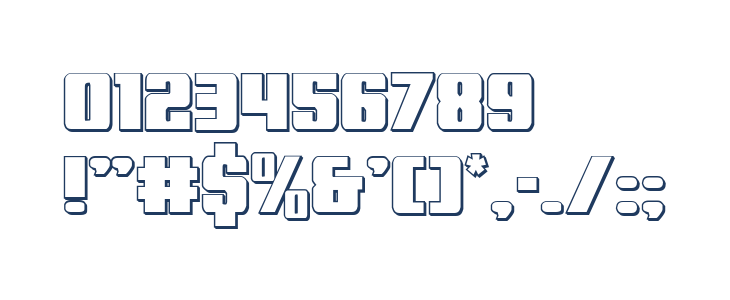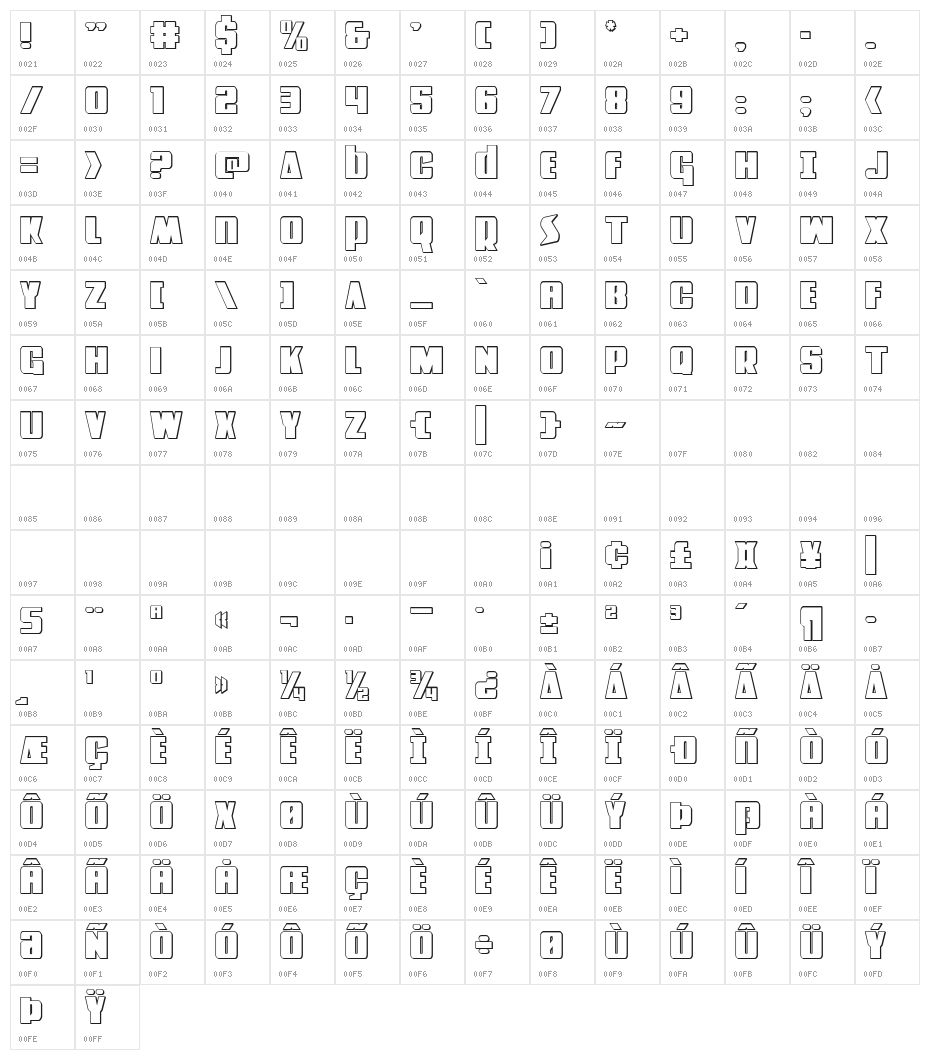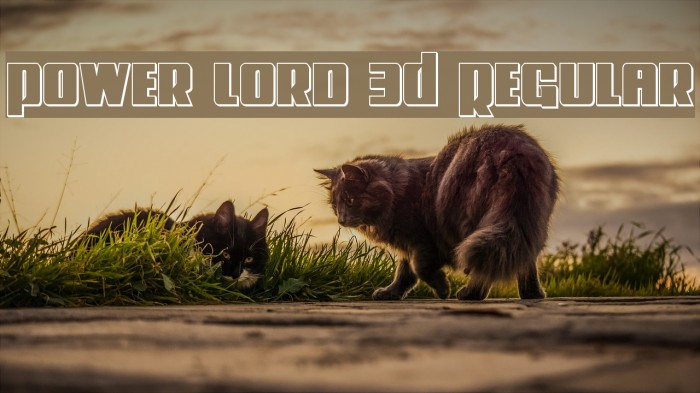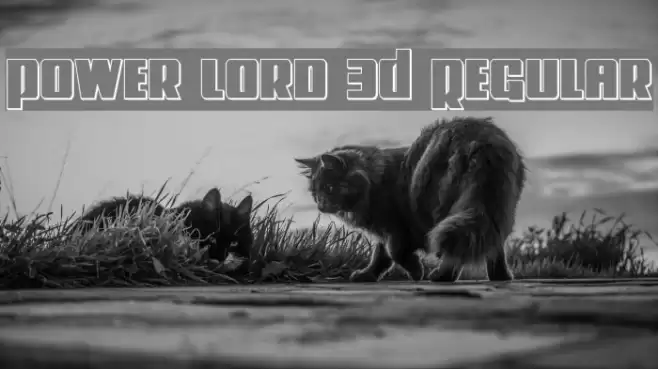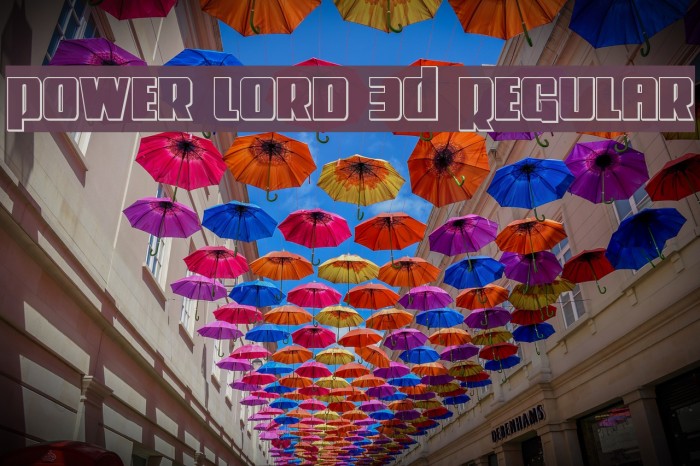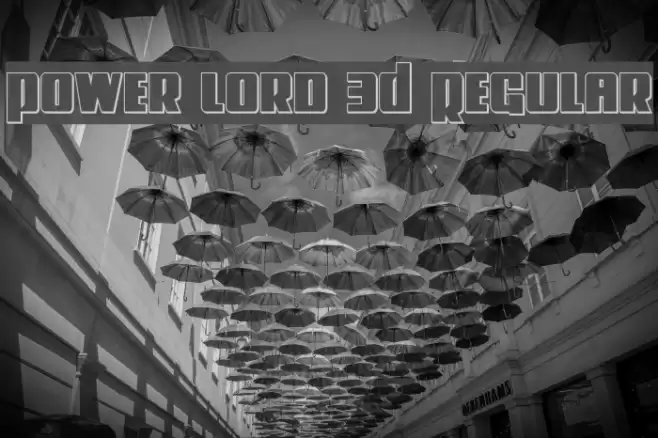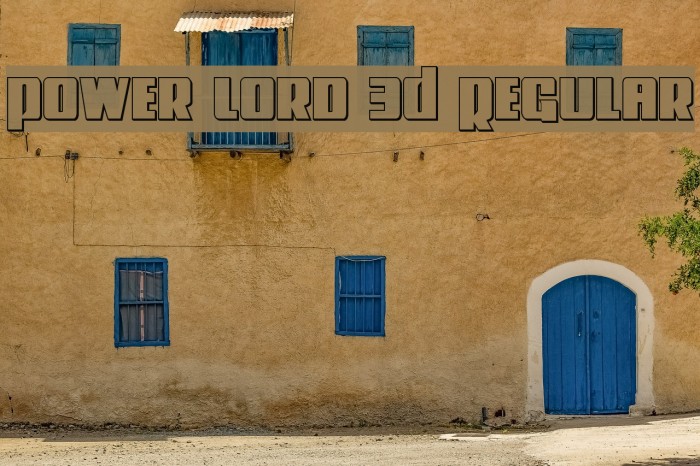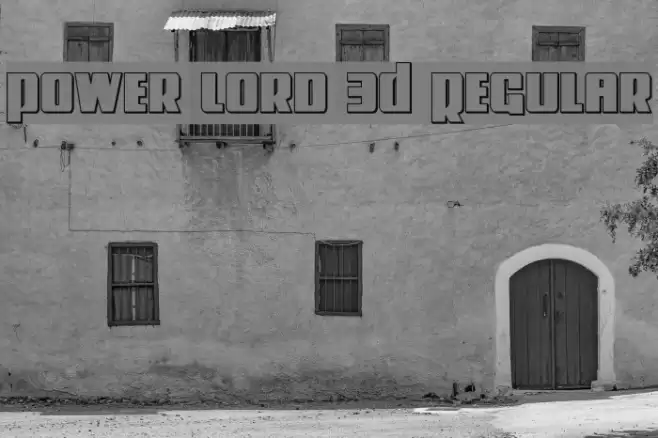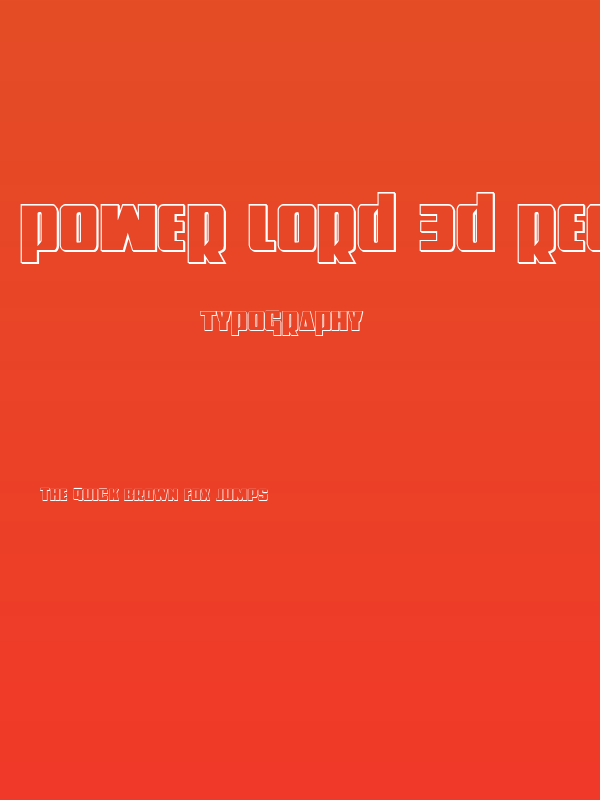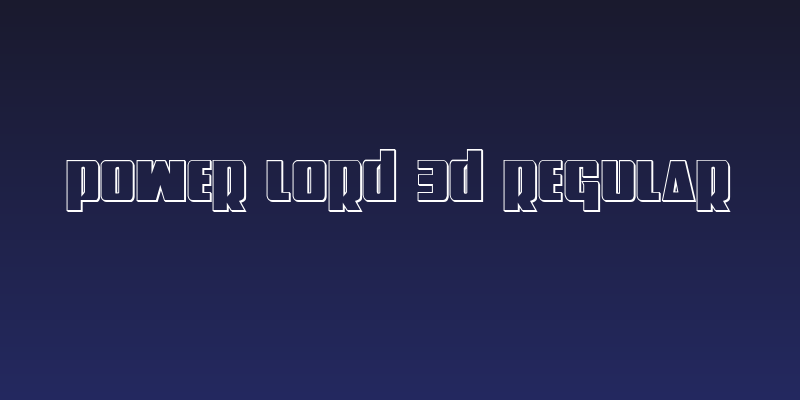
Power Lord 3D Regular Font
Power Lord 3D Regular Description
This font features a bold, three-dimensional design with a strong, impactful presence. The characters are outlined, giving them a hollow appearance that enhances their 3D effect. The style is geometric and angular, with sharp edges and a futuristic feel. The uppercase and lowercase letters maintain a consistent width, while the numbers and special characters follow the same design principles, ensuring uniformity across all glyphs. This font is ideal for projects that require a modern and dynamic look, such as gaming titles, posters, or digital media.
| Proposed Projects | Ideal for gaming titles, posters, digital media, and any project needing a modern, impactful look. |